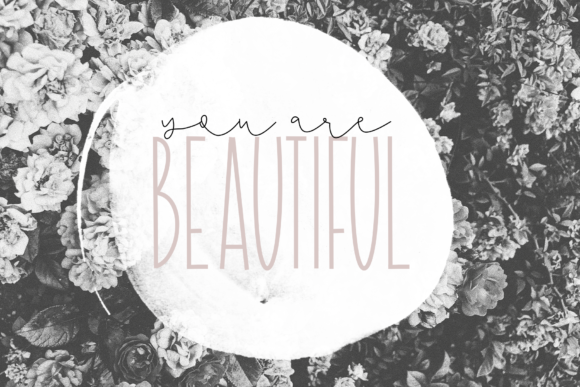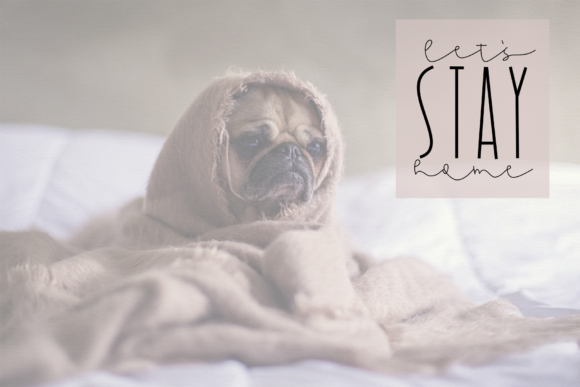
Dandy Dandelions Duo Font
db-ku.com - Script & Handwritten -- Dandy Dandelions duo is a match made in heaven, the authenticity of Dandy perfectly complements Dandelions’ style. Combining these two fonts on your next design will give it a charming and organic feel.